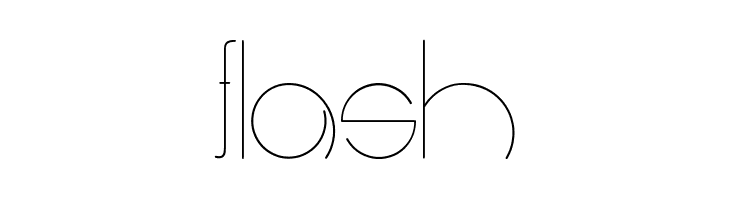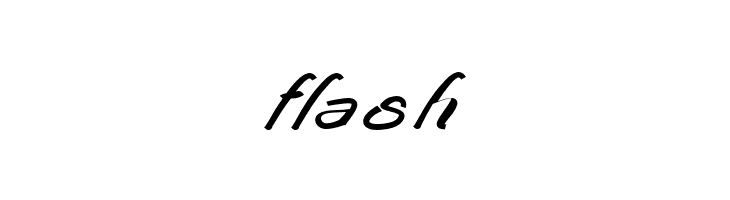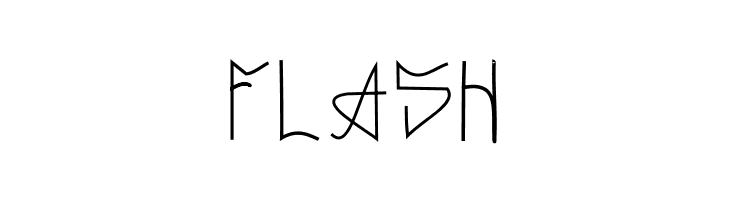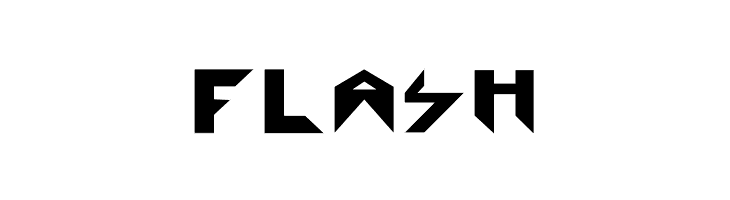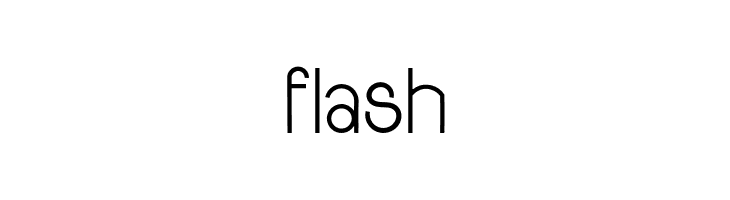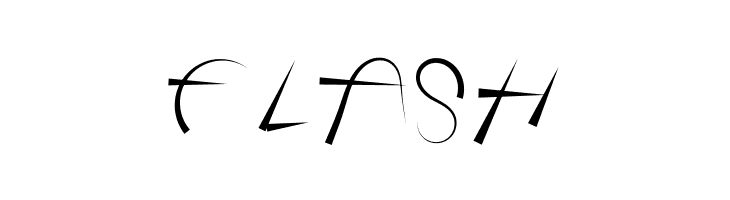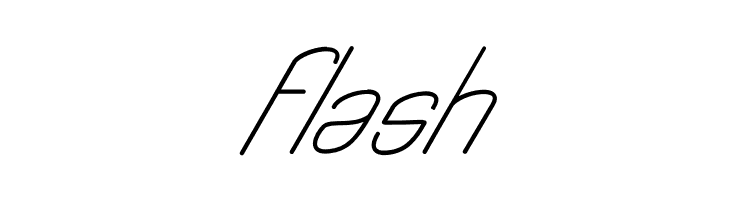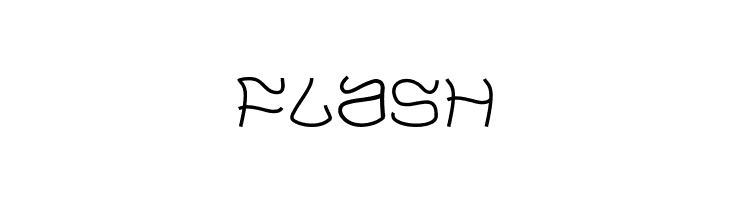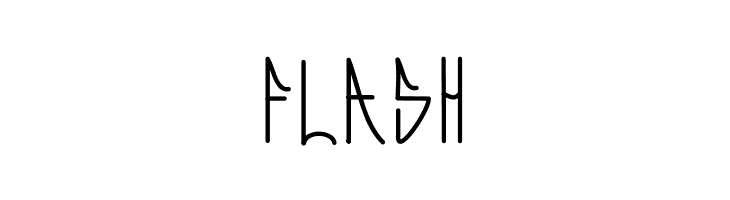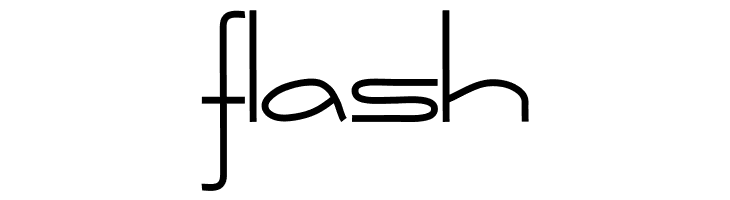
A modern, minimalist font with thin, elongated strokes and geometric shapes.
A delicate, elegant script font with thin, flowing lines and graceful curves.
A dynamic, cursive script font with elegant, flowing strokes.
A geometric and artistic font with thin, angular lines and a modern twist.
A bold, angular font with a futuristic, geometric design.
A clean, modern font with geometric shapes and uniform stroke width.
An elegant, elongated font with thin strokes and high contrast, perfect for modern designs.
A modern, artistic font with sharp angles and smooth curves, perfect for contemporary designs.
A modern, slanted script font with connected characters and consistent stroke weight.
A whimsical and playful font with artistic curves and swirls.
A geometric and angular font with a modern, edgy style.
A modern, sans-serif font with elongated, condensed characters and uniform stroke thickness.
A modern, geometric font with elongated strokes and minimalistic curves.
A modern, elegant font with high contrast and elongated strokes.
An elegant serif font with high contrast and refined curves.
Elegant serif font with an italic slant and high contrast strokes.
A playful, bold font with rounded edges and a slightly condensed style.
A playful, modern font with rounded, bold uppercase and smooth lowercase letters.
A playful, hand-drawn font with irregular, whimsical letterforms.
A modern font with classical Greek influences, featuring bold, rounded characters.
A bold, abstract font with geometric shapes and a modern, artistic style.
A modern, rounded font with geometric influences and consistent stroke width.
A playful, dotted font with a whimsical, hand-drawn style.
A playful and whimsical font with quirky, irregular letterforms.
A chaotic, expressive font with irregular strokes and a raw, edgy appearance.
A bold, edgy font with thorn-like, angular strokes.
An elegant script font with flowing, cursive letters and a classic style.
A modern decorative font with elegant curves and playful loops.
A whimsical, looped serif font with decorative elements and medium weight.
A hand-drawn, sketch-like font with a unique, artistic flair.
A tall, elegant font with slender letterforms and subtle curves, perfect for creative projects.
A modern, continuous line font with a fluid and artistic style.
An elegant, decorative font with intricate swashes and flourishes.
A modern, high-contrast font with elegant and sophisticated styling.
A high-contrast, decorative font with modern and vintage elements.